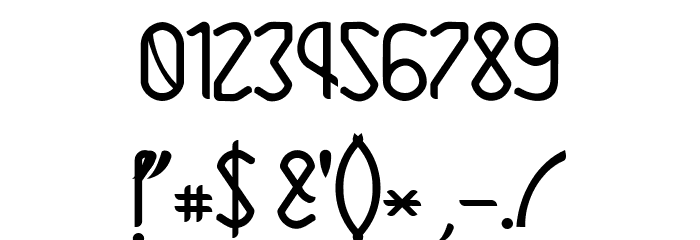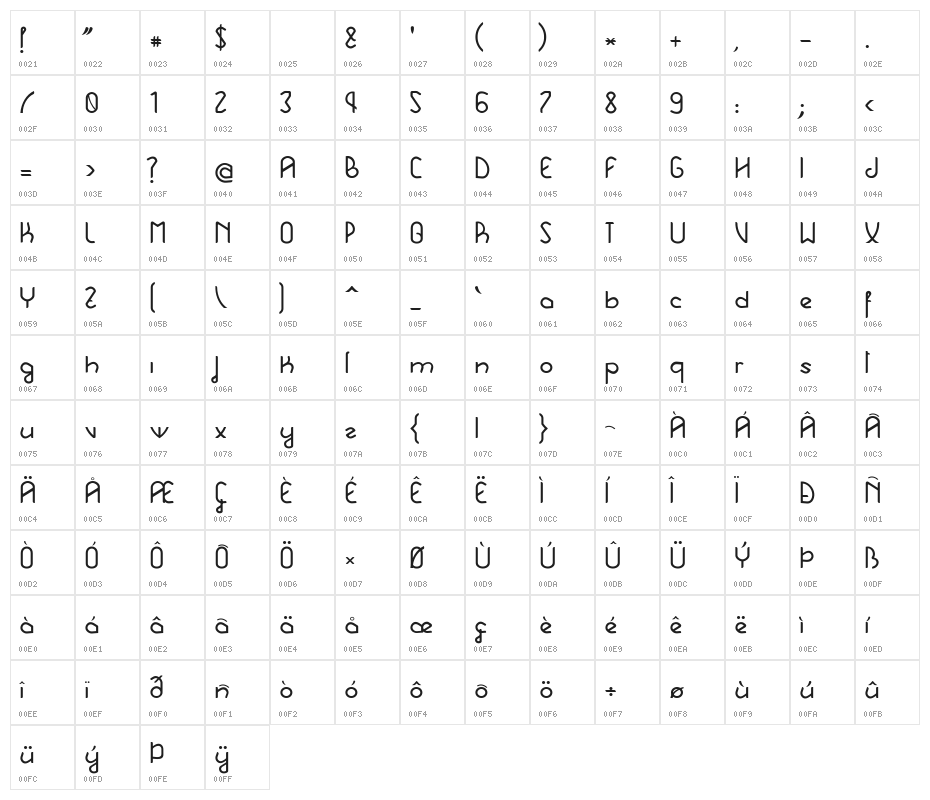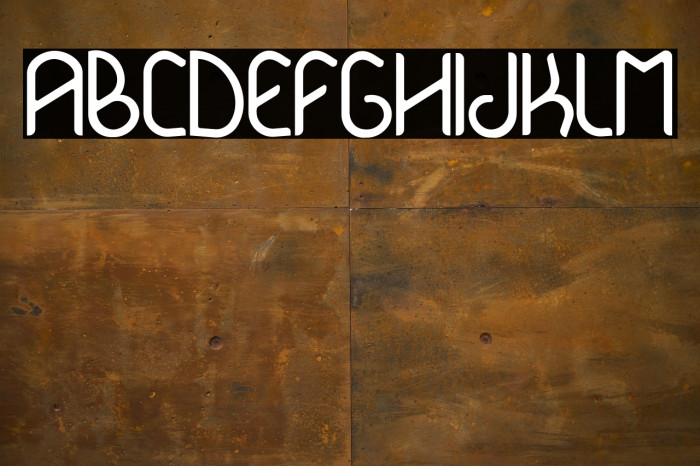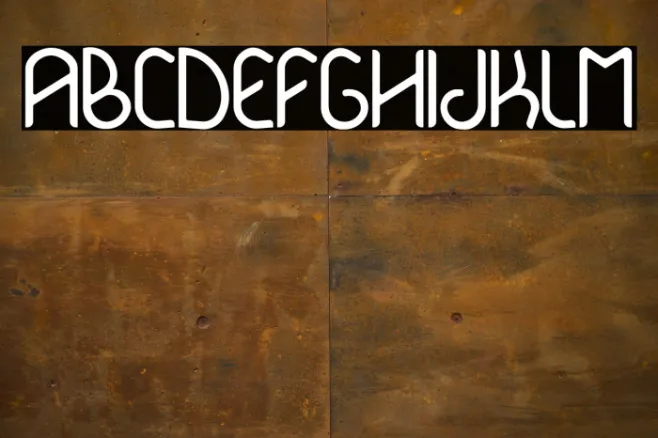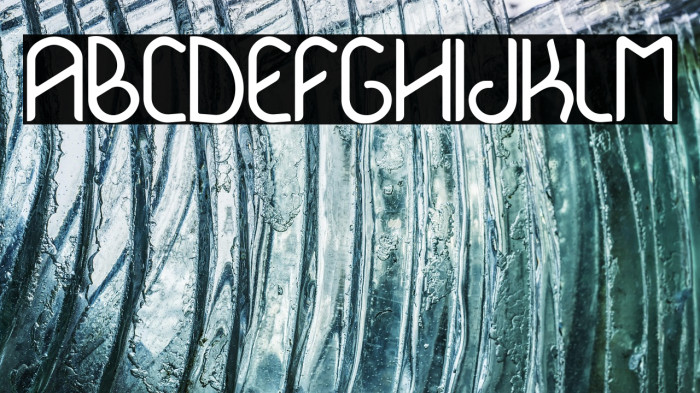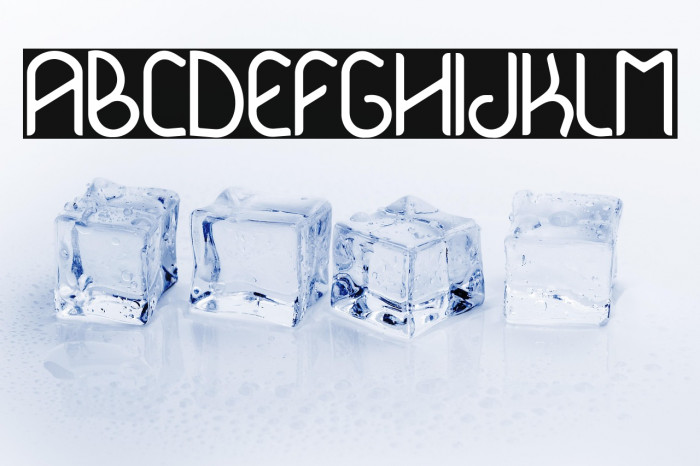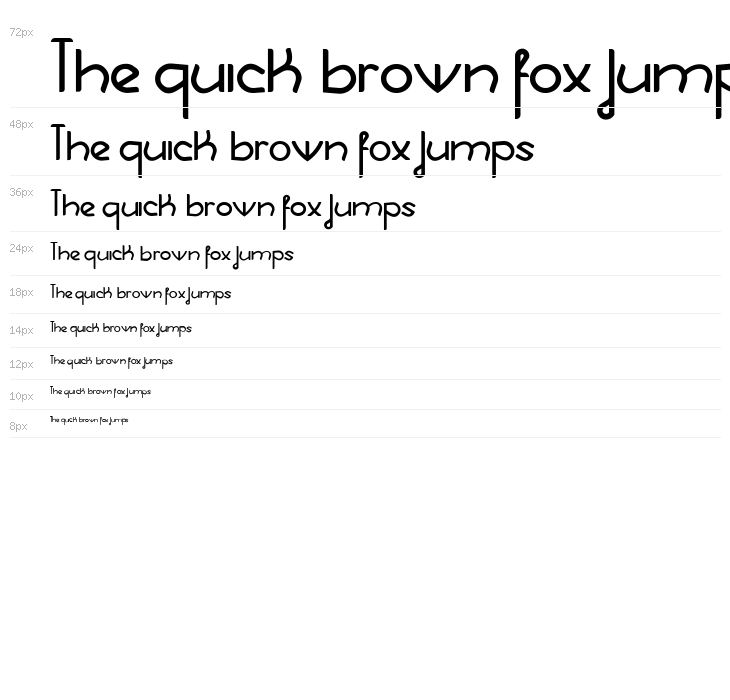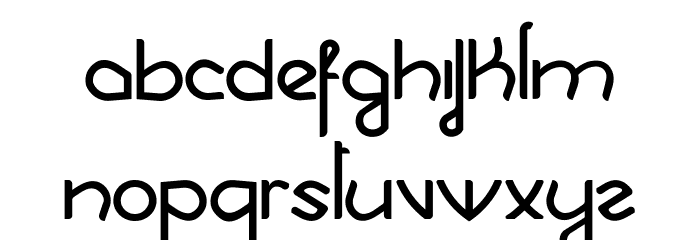
Hebe Font
Hebe Description
This font features a playful and whimsical design with rounded edges and a slightly irregular structure, giving it a hand-drawn appearance. The uppercase letters are bold and prominent, while the lowercase letters maintain a consistent flow with unique character shapes. Numbers are clear and distinct, matching the overall style. Special characters are creatively integrated, enhancing the font's artistic appeal. The font's design is suitable for projects that require a fun and informal touch, making it ideal for creative and artistic applications.
| Overall Style | Playful and Artistic |
| Use Case | Headlines, Logos, Creative Projects |
| Proposed Projects | Ideal for children's books, creative posters, playful branding, and artistic invitations. |